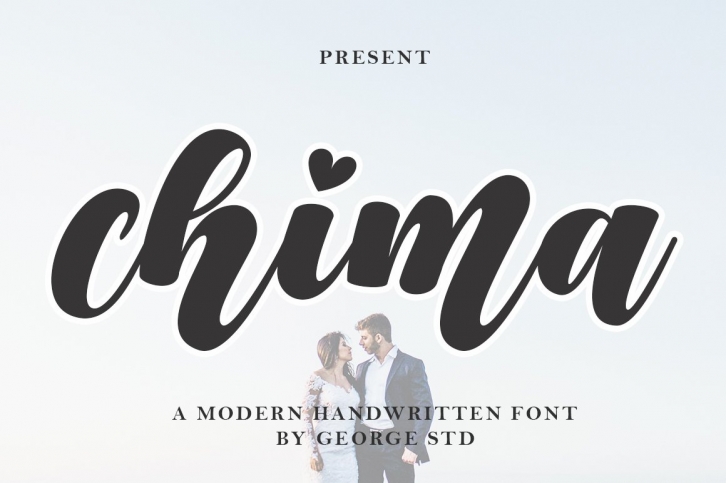
Chima is a great font that was designed by George Studio. Imagine the amount of combinations you can create using this font! The archive is 7.75 MB and it was released on July 26, 2022. Chima looks beautiful on wedding invitations, greeting cards, logos, posters, labels, t-shirt designs, logos, business cards and is perfect for use in ink or watercolor works, fashion, magazines, packaging and food menus, children's books and more!